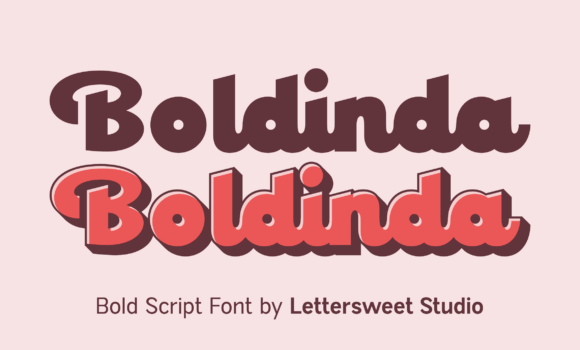
boldinda
Boldinda Font - Featured Image
Boldinda Font – Free Download Introduction to Boldinda Font Boldinda is a thick, eye-catching script font designed to bring warmth, confidence, and personality into your designs. 📸 Preview Gallery 6 images 📌 Product Name Boldinda Font 👤 Author Lettersweet 📂